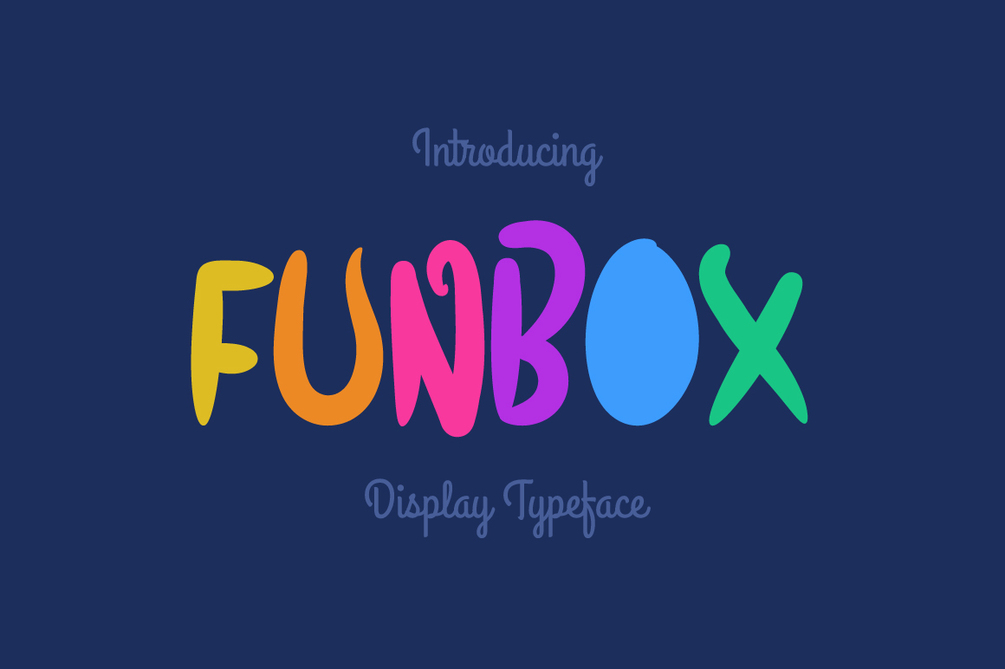
Funbox Script
Funbox Script Font
Funbox is a brand new font. Funbox is perfectly suited to stationery, logos, t-shirt, paper, print design, website header, photo frame, flyer, music cover, poster, image slider and much more.